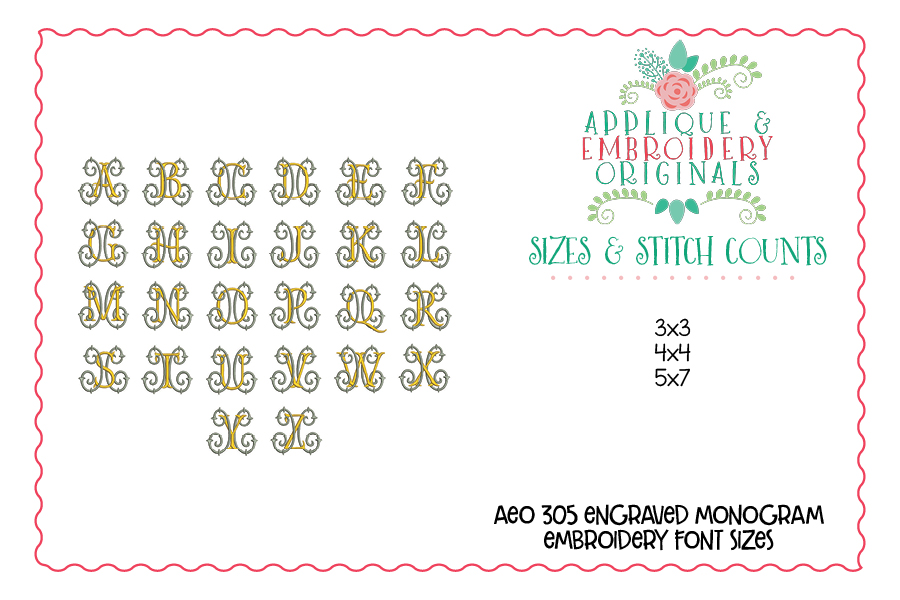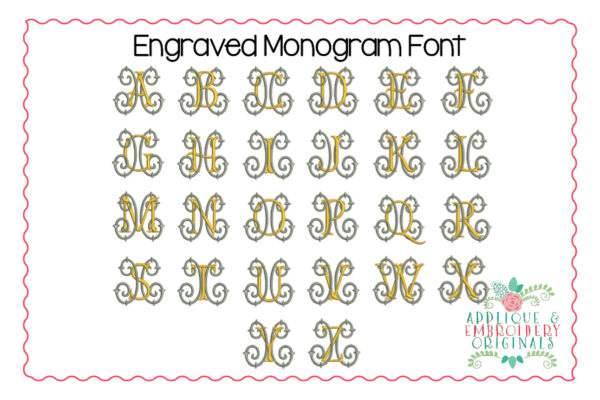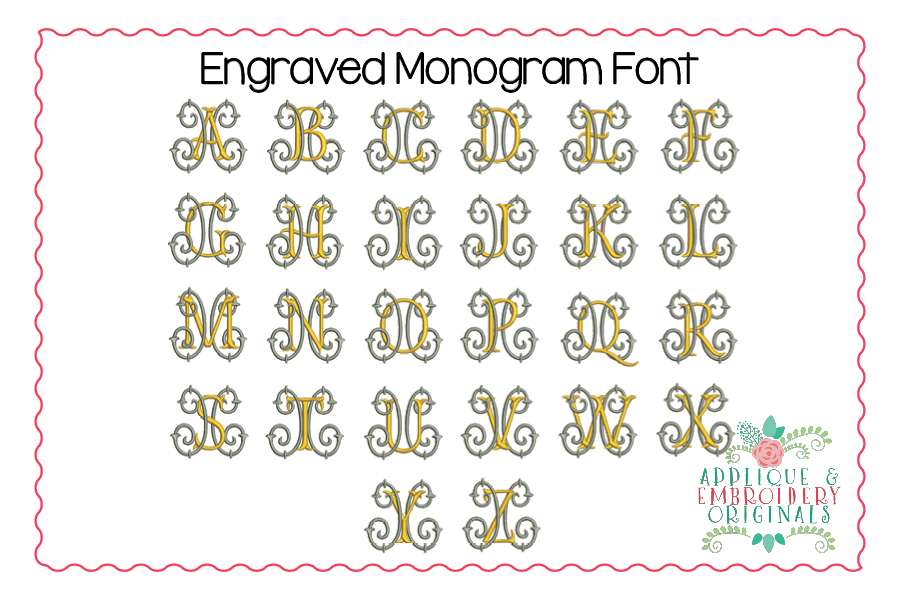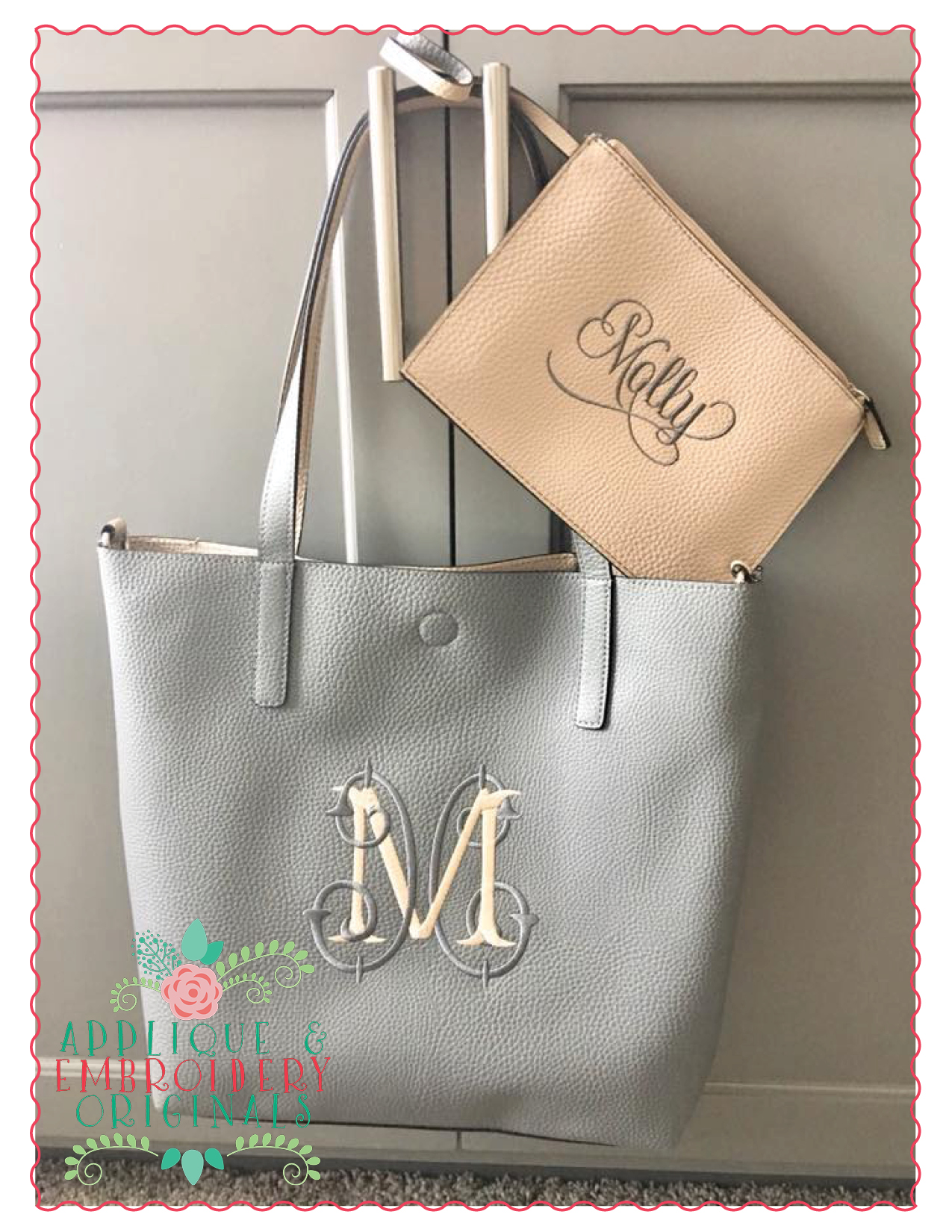
305 Engraved Monogram Embroidery Font for embroidery machine. Perfect for your shirt, bag, towel or other item!
Designs comes in sizes 3×3, 4×4 and 5×7. All letters include A-Z. All letters are satin stitch.